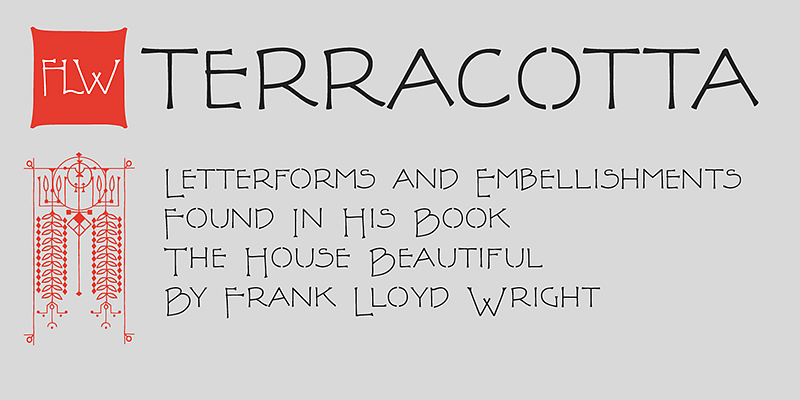
P22 FLW Terracotta
P22 FLW Terracotta is based on Frank Lloyd Wright's early work and in his book, The House Beautiful. Wright based these delicate graphic designs on stylized natural plant forms.